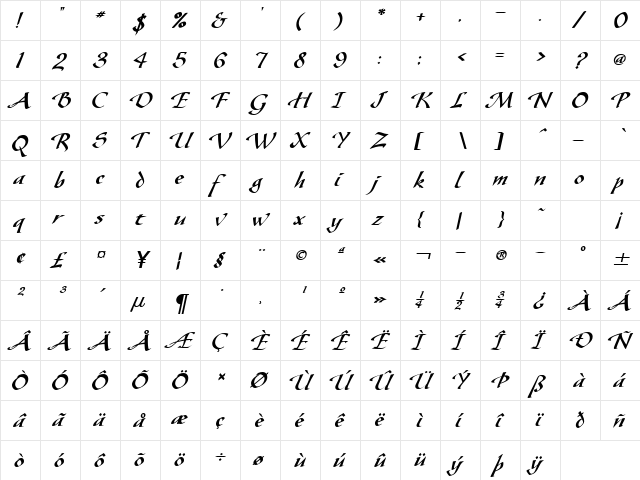
Gaze BoldItalic
Design Context for Gaze Typeface
Gaze is a composed and adaptable typeface that performs quietly and consistently across a wide range of design contexts. The slanted form adds forward momentum and visual energy. Its bold stroke weight gives it real presence on the page.